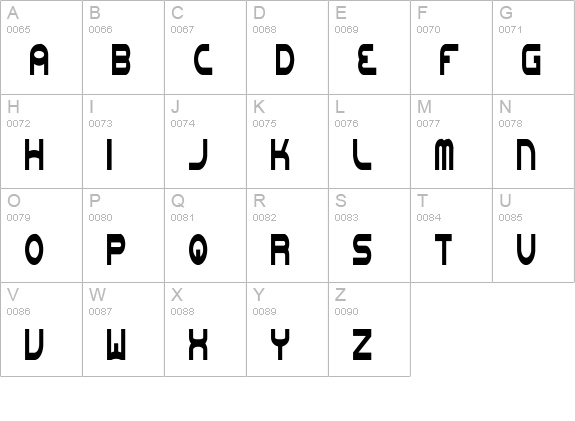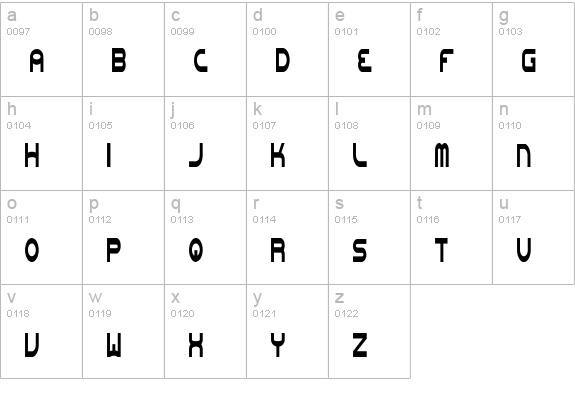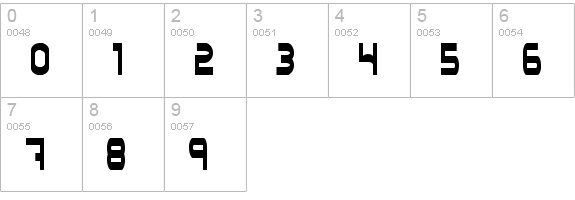
Oneworldonefuture Light Font Details
Oneworldonefuture Light is a refined, elegant variant in the Oneworldonefuture typeface family \xE2\x80\x94 well suited to elegant body text, refined sub-headings, and luxury branding.